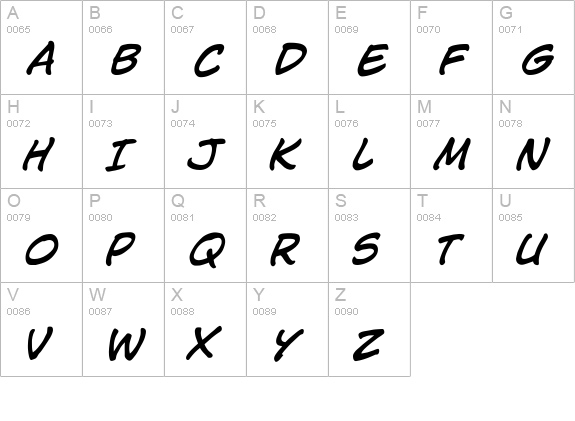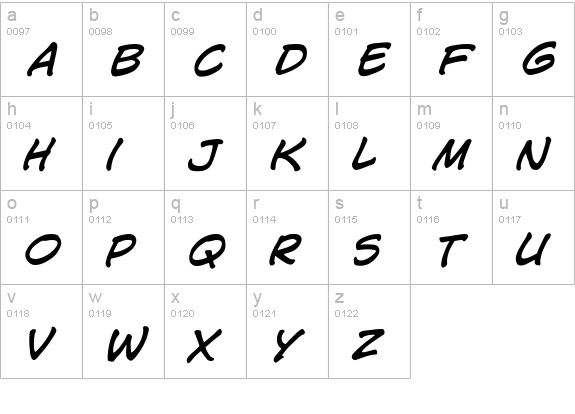
CCJimLee-Italic Font Details
CCJimLee-Italic is a distinctive, italic variant in the CCJimLee typeface family \xE2\x80\x94 well suited to design and typography projects.
CCJimLee-Italic font is a stylish and modern typeface that exudes elegance and sophistication. Its sleek italic design adds a touch of flair to any project, making it perfect for creative endeavors, branding, and more. This versatile font is free to download at FontsMarket.com, where you can easily access it to elevate your designs and make a statement. With its unique charm and professional appeal, CCJimLee-Italic font is a must-have for designers looking to add a touch of finesse to their work.